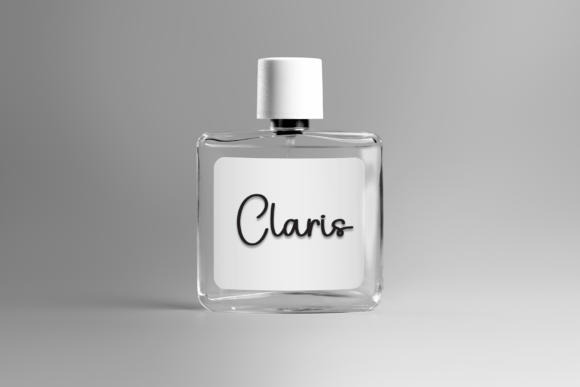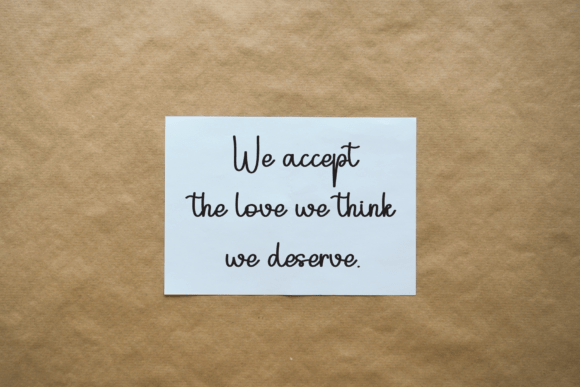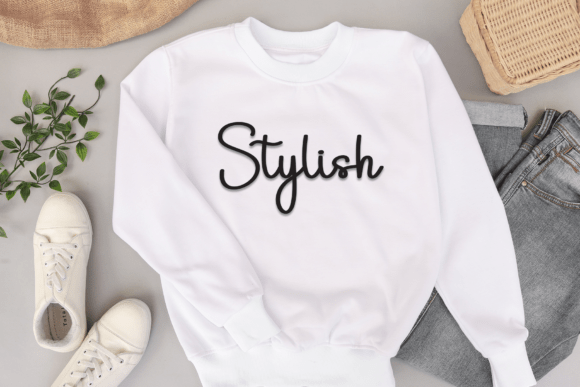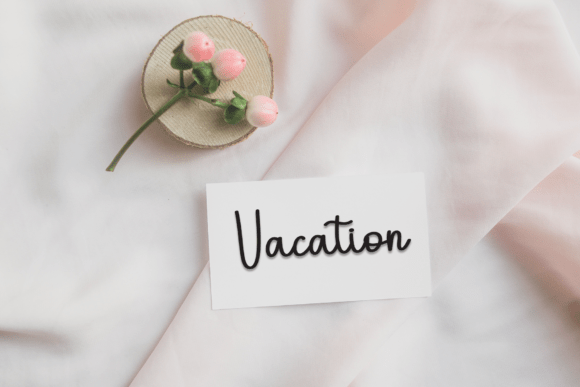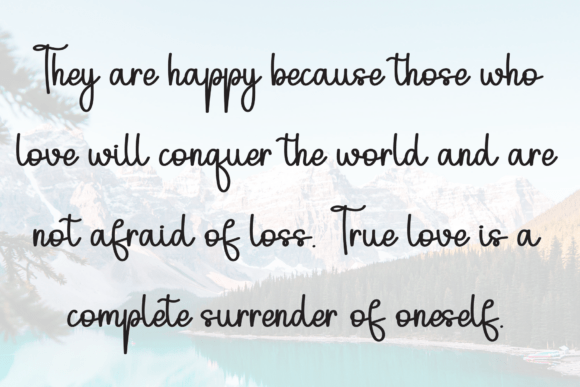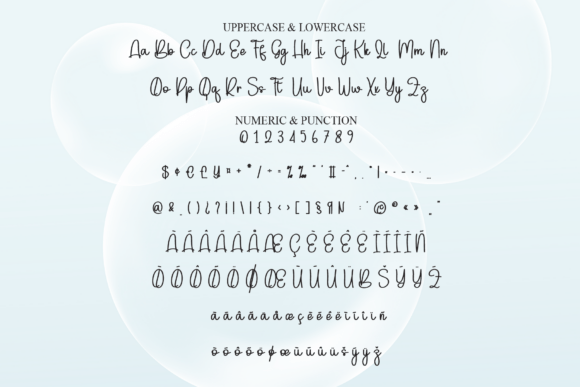
Discover the Joy of Handwritten Charm with Bubble Font
There’s nothing quite like the thrill of brainstorming new design ideas – the scribbles on a napkin, the rough sketches on a whiteboard, the spark of creativity that refuses to fade. As designers, we’re always on the lookout for that special something that sets our projects apart from the rest. And today, we’re excited to introduce you to a font that embodies the essence of whimsy and warmth – the delightful Bubble Font.
Perfectly suited for wedding invitations, cards, and any design that requires a touch of friendliness, Bubble Font is a charming handwritten display font that’s sure to capture hearts. With its sweet and endearing quality, it’s a valuable addition to any designer’s toolkit, offering a unique way to express creativity and add a personal touch to any project.
Bubble Font Key Features
- Unique Characteristics: The font features a distinctive bubble-like shape, with rounded edges and a soft, whimsical feel, making it perfect for creative and playful designs.
- Font Styles: Bubble Font includes multiple font styles, including Regular, Bold, Italic, and Bold Italic, providing users with a range of options to suit their design needs.
- Unicode Support: Bubble Font supports a wide range of Unicode characters, including Latin, Cyrillic, and Greek alphabets, making it a versatile choice for international designs.
Bubble Font Review
I recently had the chance to work with the Bubble Font, and I must say, it’s a unique and eye-catching font. ✨ One of the things that stands out is its playful, rounded design that adds a touch of whimsy to any text. ✨ It’s perfect for creating a fun and youthful atmosphere in branding, advertising, or even digital products.
However, there are a few limitations to consider. ⚠️ For one, the font can be quite difficult to read at small sizes or in certain contexts, which may limit its use in certain applications. ⚠️ Additionally, the font’s rounded design can sometimes make it difficult to distinguish between similar characters, which may lead to errors in text entry or formatting.
Here are some specific pros and cons:
- ✨ Playful, rounded design adds a touch of whimsy to text
- ✨ Perfect for creating a fun and youthful atmosphere
- ⚠️ Can be difficult to read at small sizes or in certain contexts
- ⚠️ Rounded design can make it difficult to distinguish between similar characters
Overall, I think the Bubble Font is a great choice for designers looking to add some personality to their work. While it may have some limitations, its unique design and playful vibe make it a standout option for the right project.
The bubble font is commonly used in social media graphics, presentations, and advertisements to add a playful and eye-catching effect. It’s also used in educational materials and children’s content to make learning more engaging and fun.